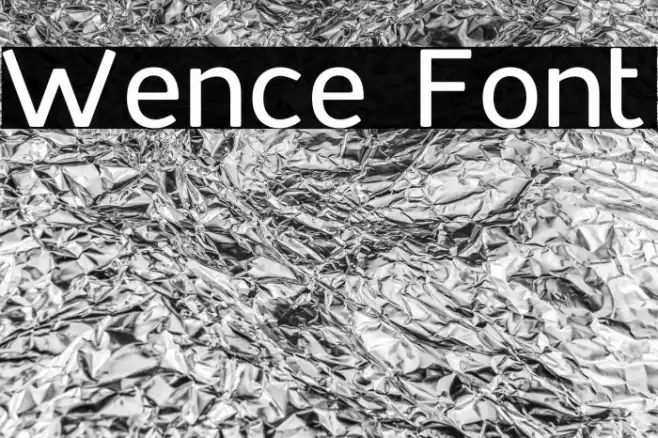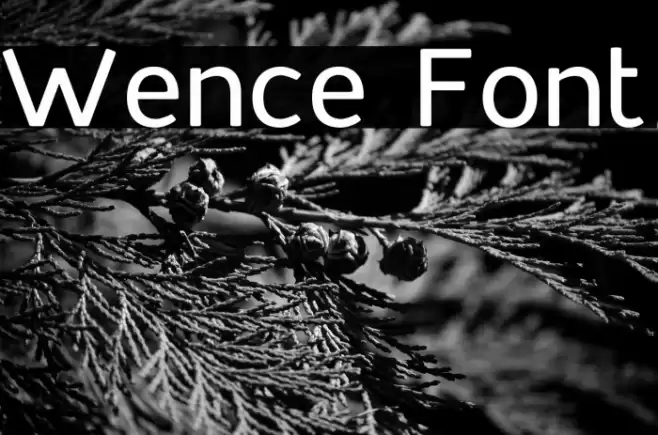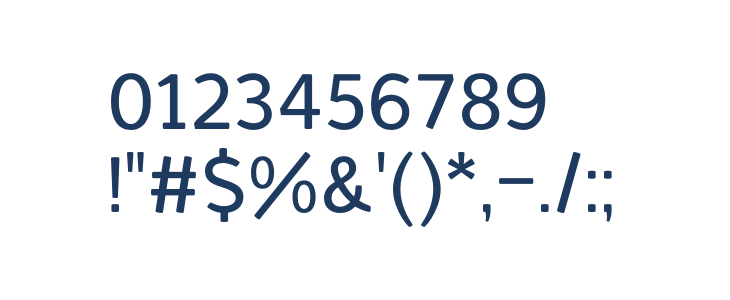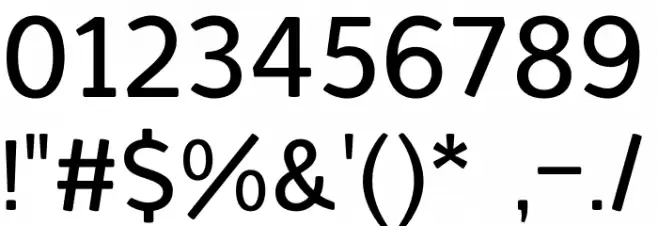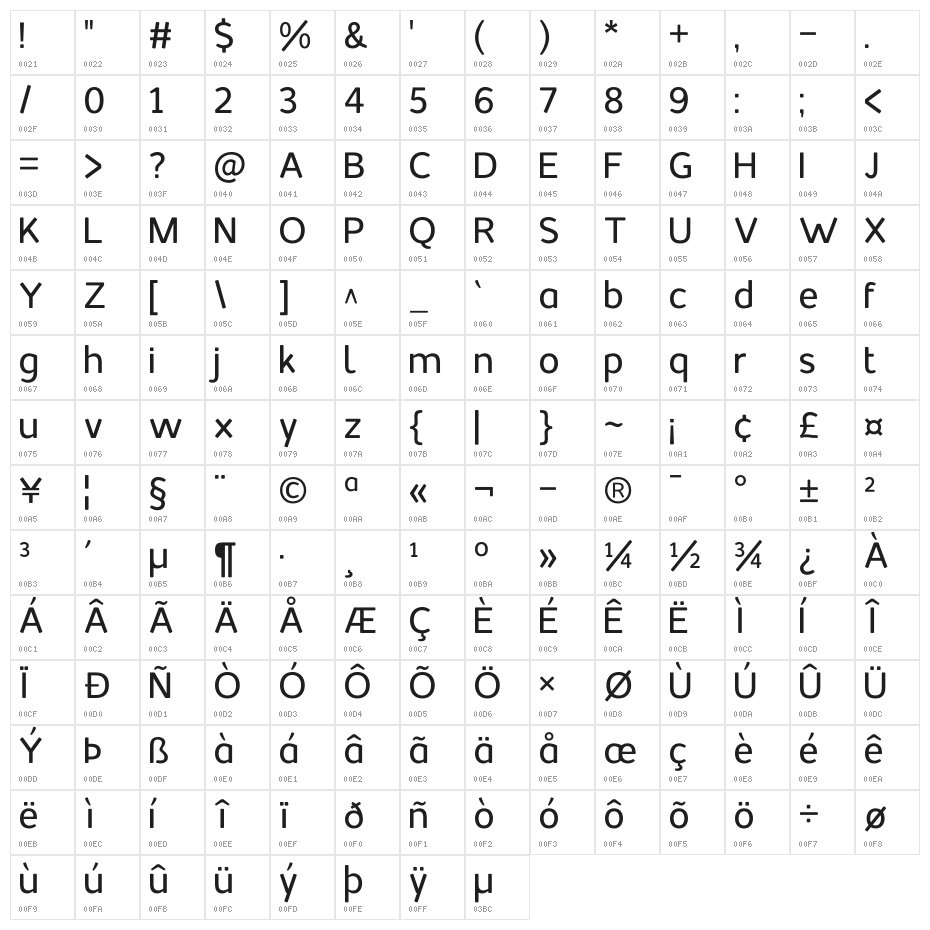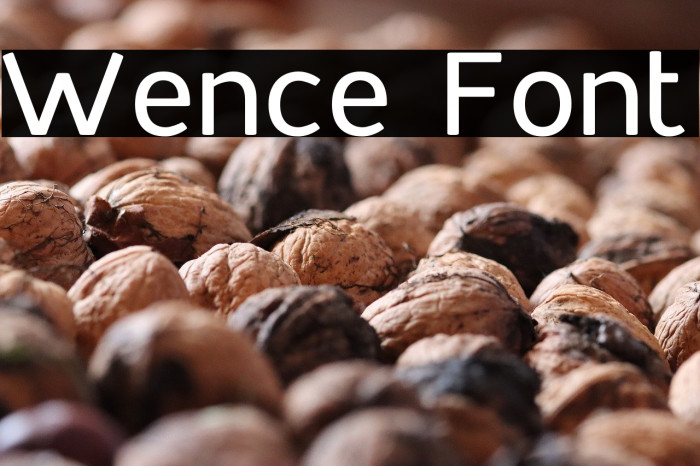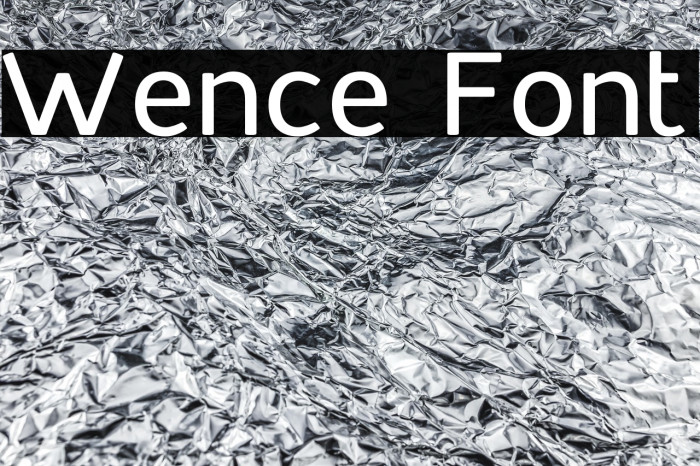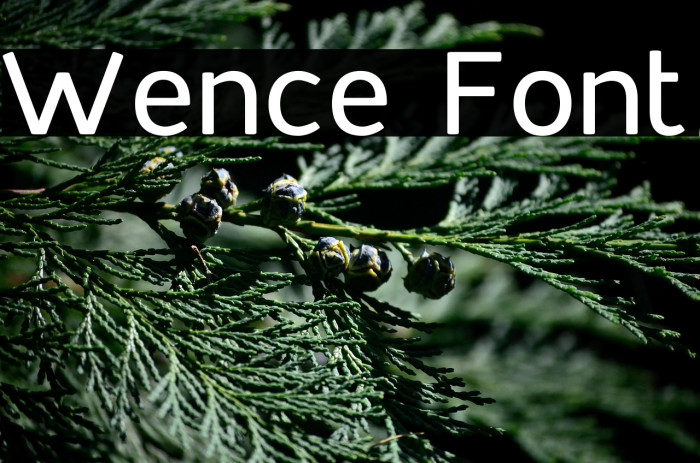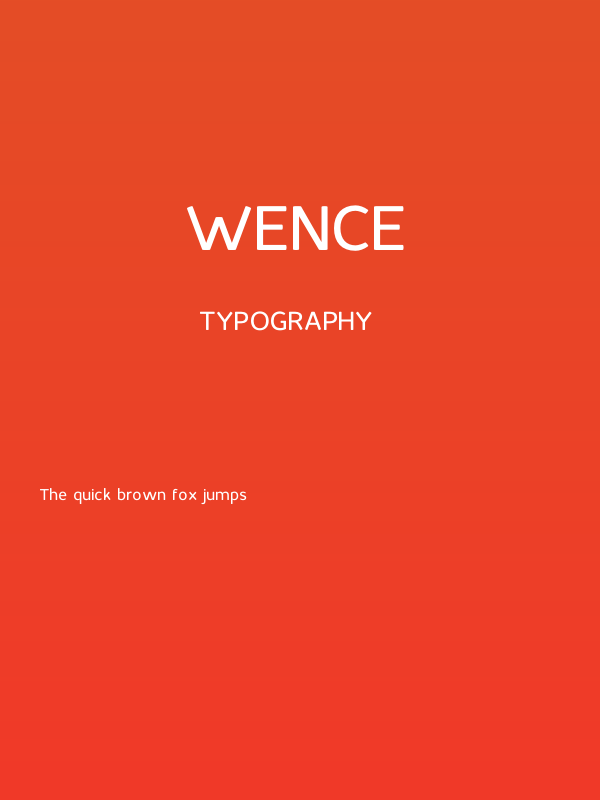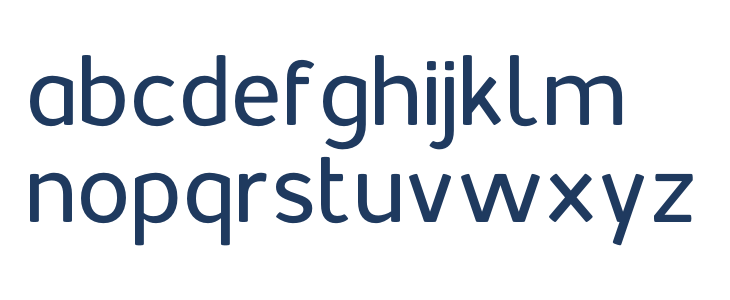
Wence Font
Wence Description
This font features a clean and modern sans-serif design, characterized by its rounded edges and uniform stroke width. The uppercase letters are bold and assertive, while the lowercase letters maintain a friendly and approachable appearance. The numerals are clear and easy to read, making them suitable for various applications. Special characters are well-defined, ensuring versatility in usage. The overall design is balanced, with consistent character height and spacing, providing a harmonious visual experience.
A modern, rounded sans-serif font with clean lines and balanced proportions from Regular fonts.
- Proposed Projects: Ideal for digital interfaces, branding, advertising, and editorial design where clarity and modernity are desired.